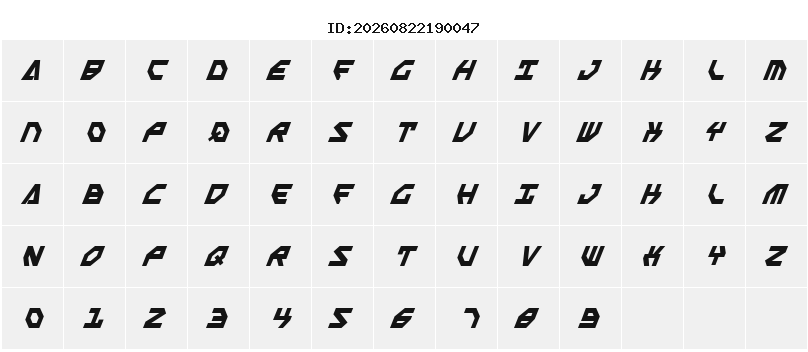
About Scarab Script Bold Italic.ttf
Scarab Script Bold Italic.ttf is a modern, elegant sans-serif font designed for ultimate readability and visual harmony. Perfect for branding, headlines, web design, and print materials.